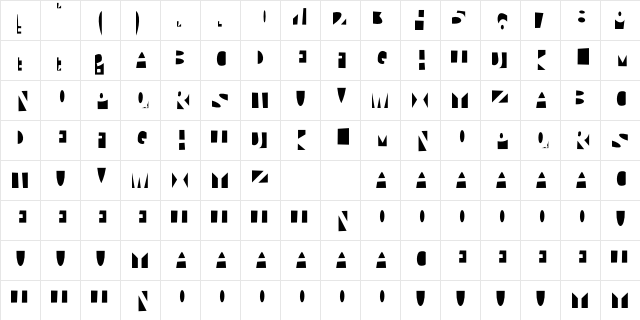
Negatively Positive Regular
| Designer | Nathan G Tripp |
Design Context for Negatively Positive Typeface
Negatively Positive is a composed and adaptable typeface that performs quietly and consistently across a wide range of design contexts.